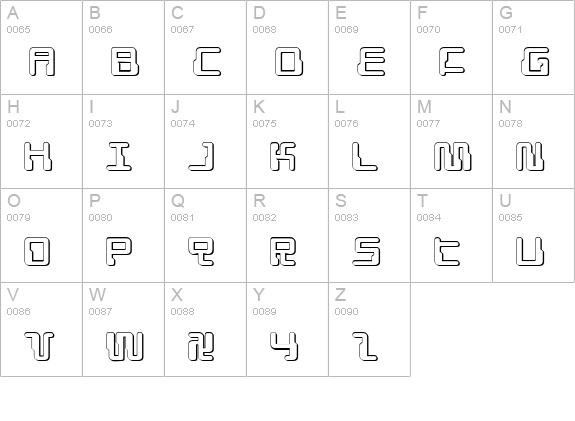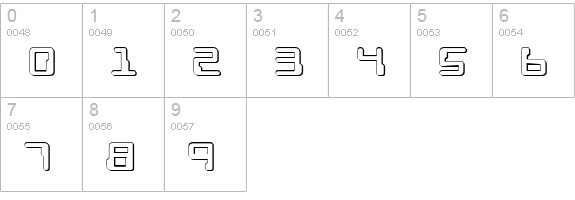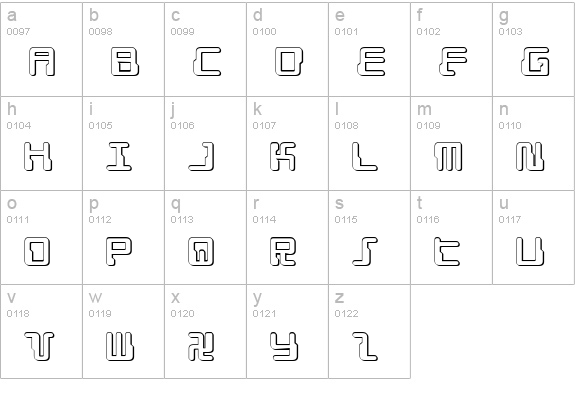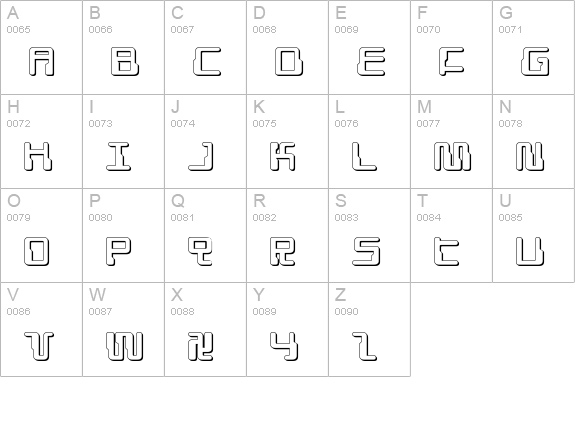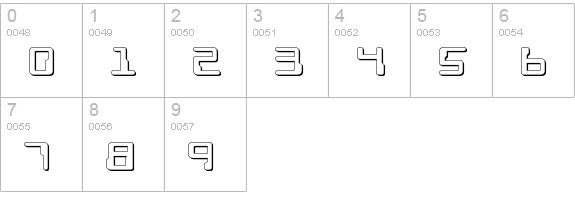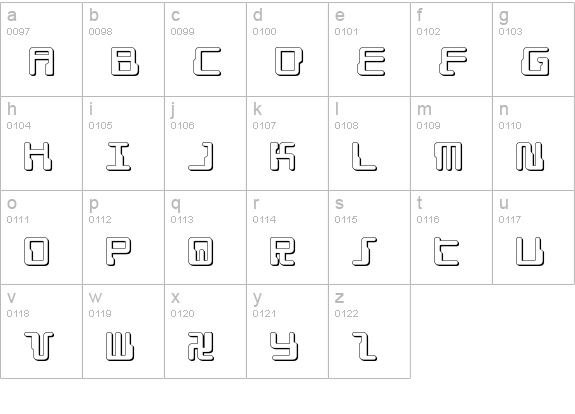
Droid Lover 3D Expanded is a distinctive, extended-width variant in the Droid typeface family \xE2\x80\x94 well suited to design and typography projects.
Droid Lover 3D Expanded font is a sleek and modern typeface that is perfect for adding a futuristic touch to your designs. This bold and eye-catching font features a 3D effect that gives it a dynamic and engaging look. Whether you're designing a poster, logo, or website, Droid Lover 3D Expanded font will make your text stand out. The best part is that this amazing font is available for free download at FontsMarket.com. So why wait? Give your projects a unique and stylish edge with Droid Lover 3D Expanded font today!